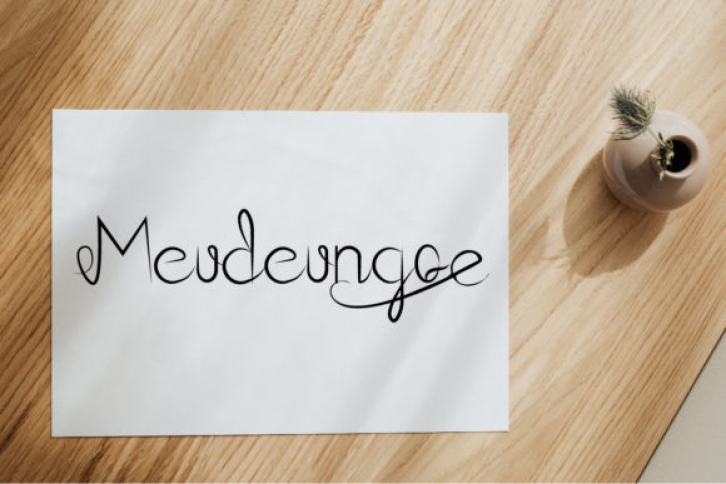
Meudeungoe is a romantic and delicate calligraphy typeface with characters that dance along the baseline. This font is PUA encoded which means you can access all of the glyphs and swashes with ease! Not too thin and not too thick, balanced and varied, Meudeungoe was designed to enhance the beauty of your projects.